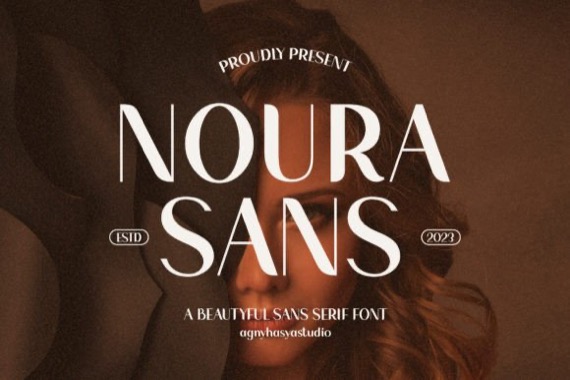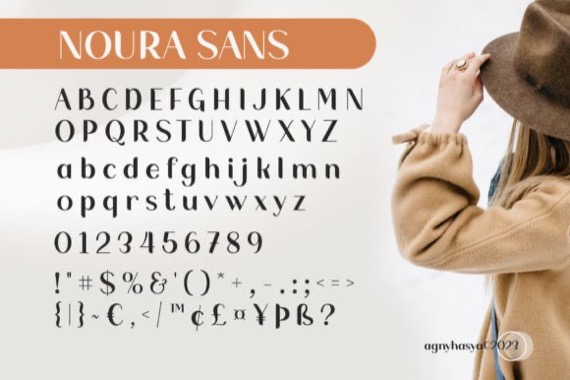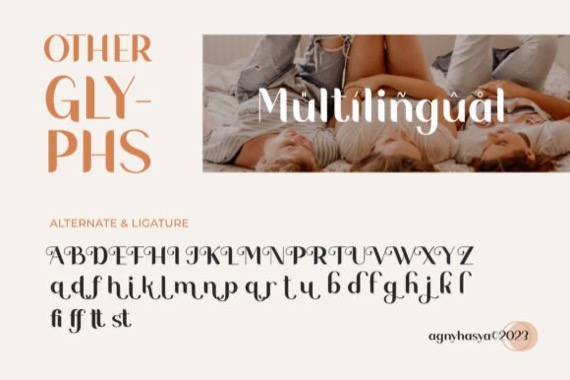
Noura Font is a gorgeous display sans serif font that captures the essence of clean & cool. It’s created with glyph variations like alternates and ligatures. Perfect for your design projects like logos, branding, advertising, product designs, stationery, magazine designs, book/cover title designs, photography, art quotes, wedding designs, fashion designs, special events, labels, product packaging, and more. This font is PUA encoded which means you can access all of the amazing glyphs and ligatures with ease!
Noura Sans Serif Font